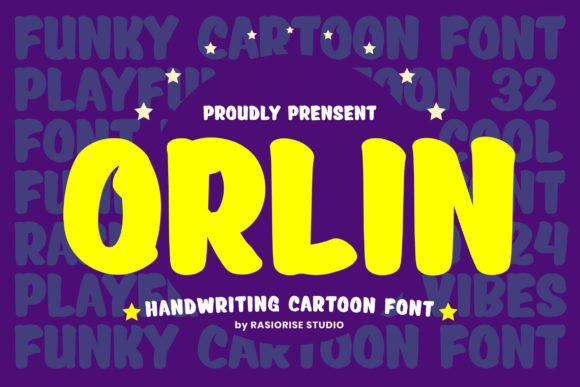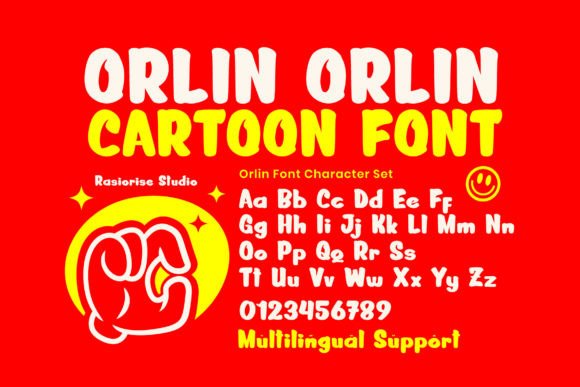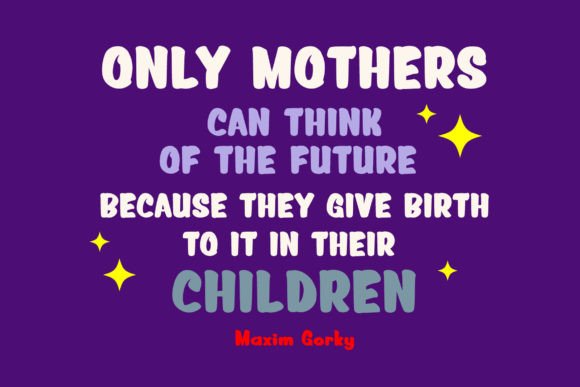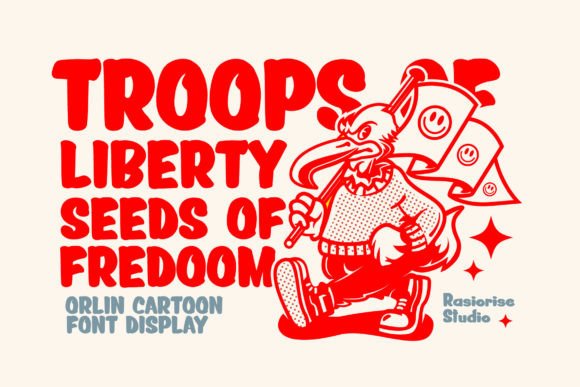
Orlin Font: A Fun Handwriting Font for Cute DIY & Cricut Projects
About the Orlin Font
Add a touch of class to your work with the Orlin Font, a truly exceptional typeface. Orlin is perfect for those looking for a handwriting cartoon font. The font is inspired by handwriting in bubble panel comics and sign painter lettering, blending freestyle elements with a touch of classic cartoon bold style. This font includes regular uppercase and lowercase characters, numerals, and multilingual support. It is very suitable for logotypes, sign painter-style designs, book covers, children’s books, comic text, posters, merchandise, packaging labels, badges/emblems, and much more.
Orlin Font Usage Examples